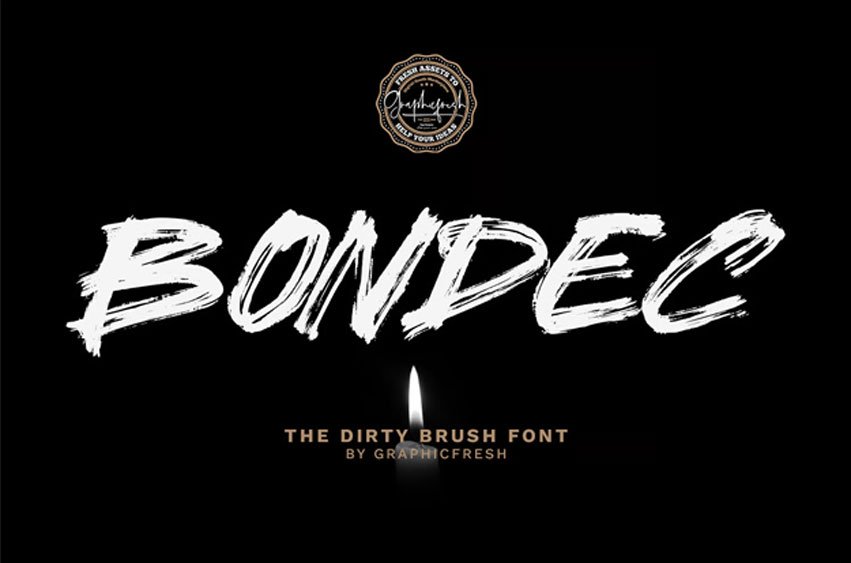
Bondec Font
Bondec Font The Dirty Brush Font. Bondec is a dirty brush font built with rough strokes and bold textured character.
Inspired by authentic hand-painted lettering, this font captures the raw energy and imperfect beauty of brush movement. Its rugged edges and expressive forms create a powerful and rebellious visual presence while maintaining solid readability.